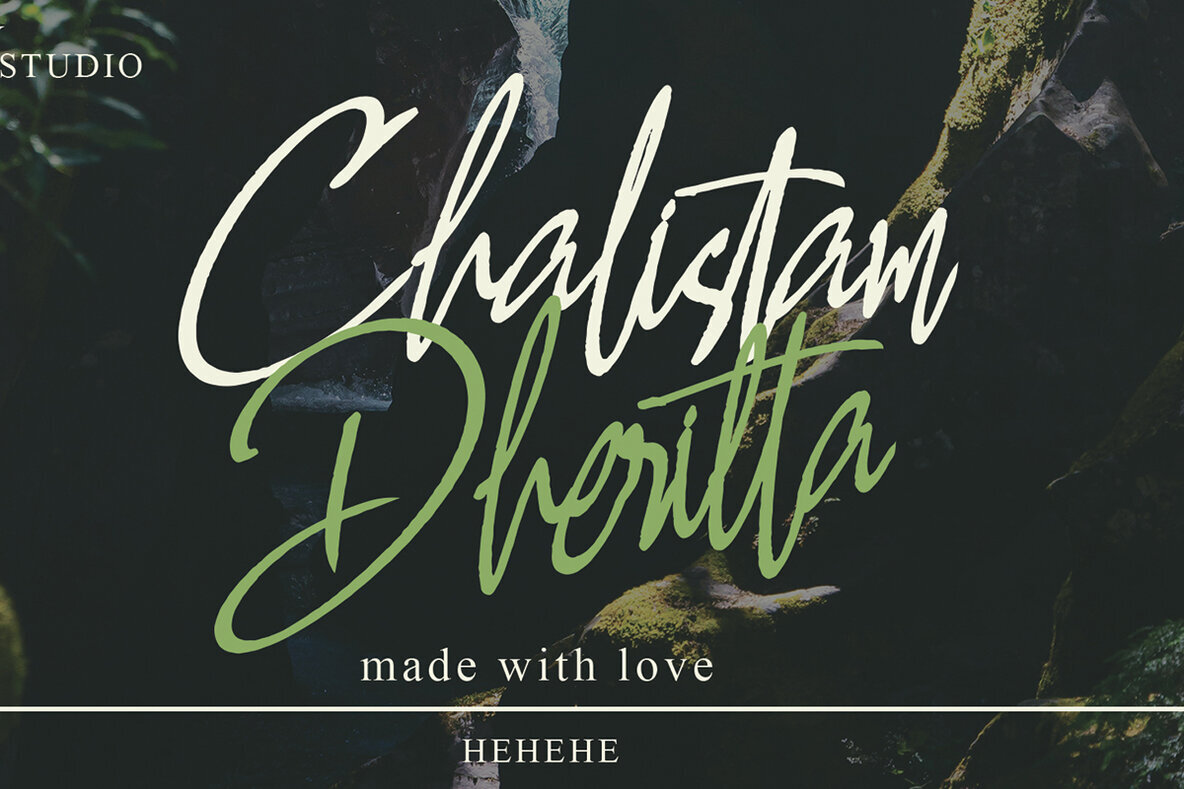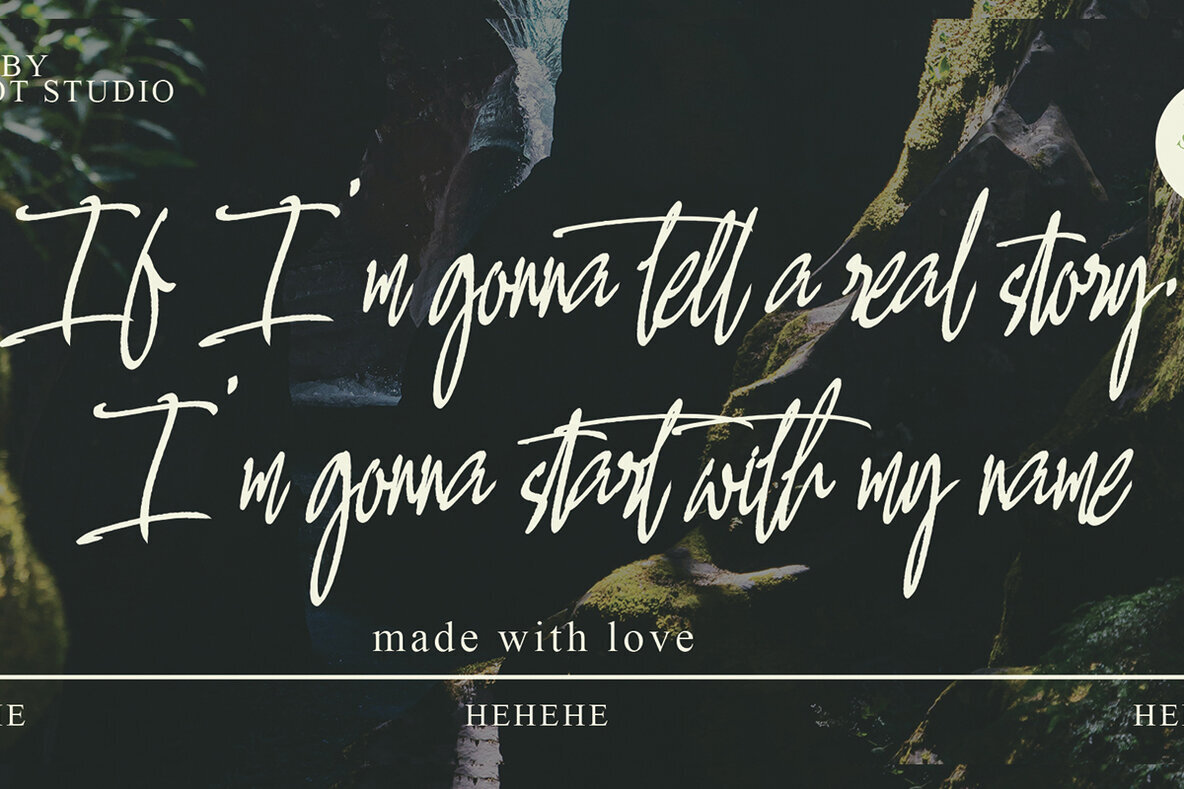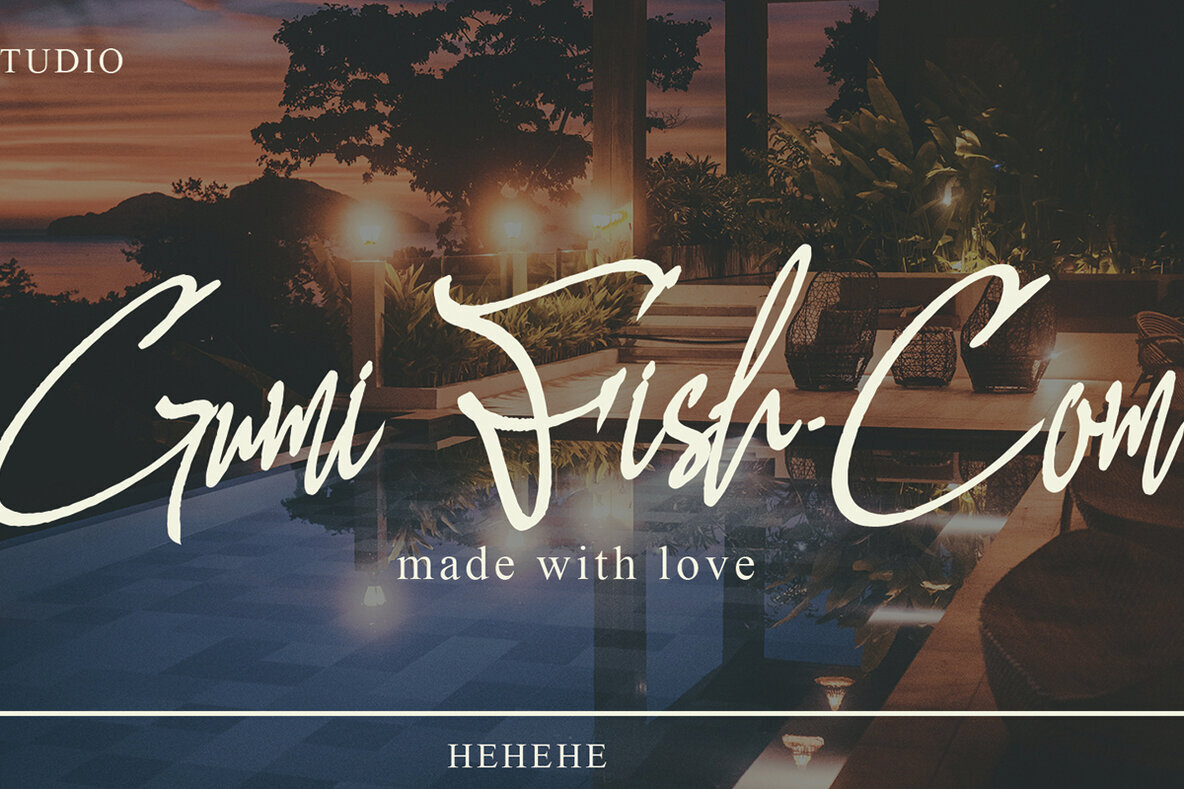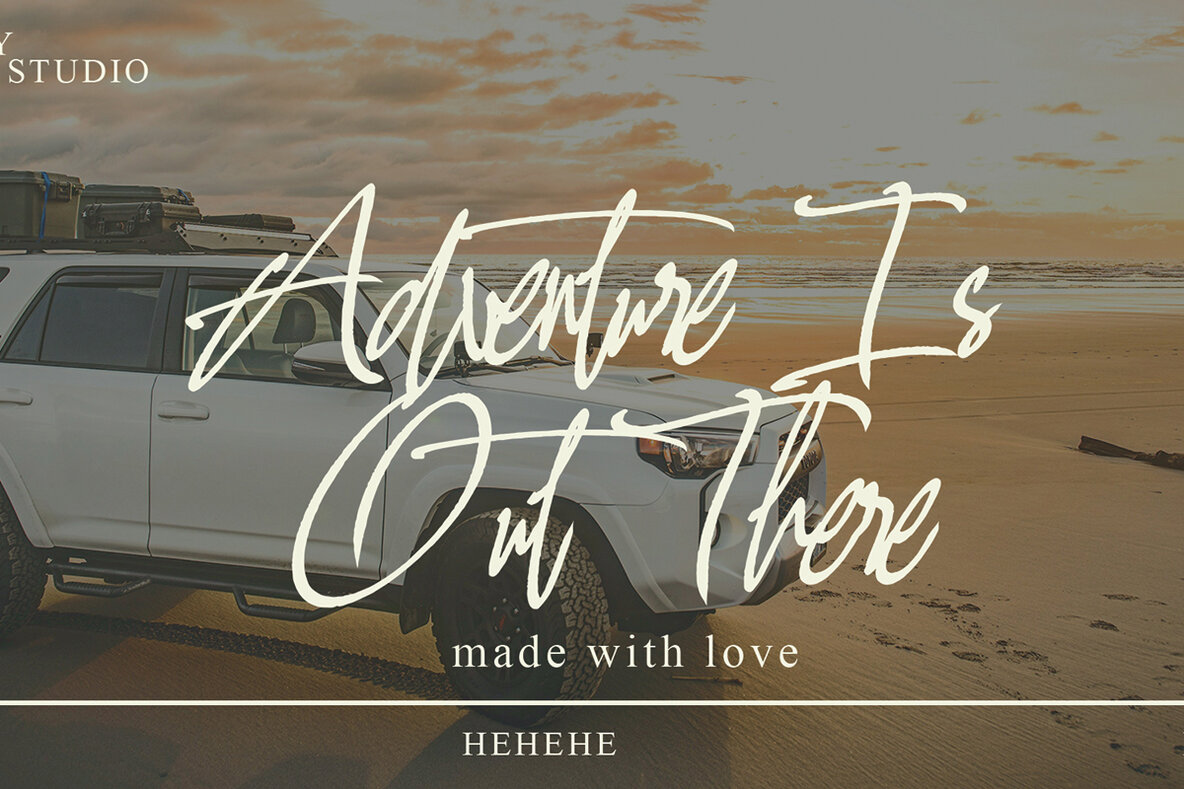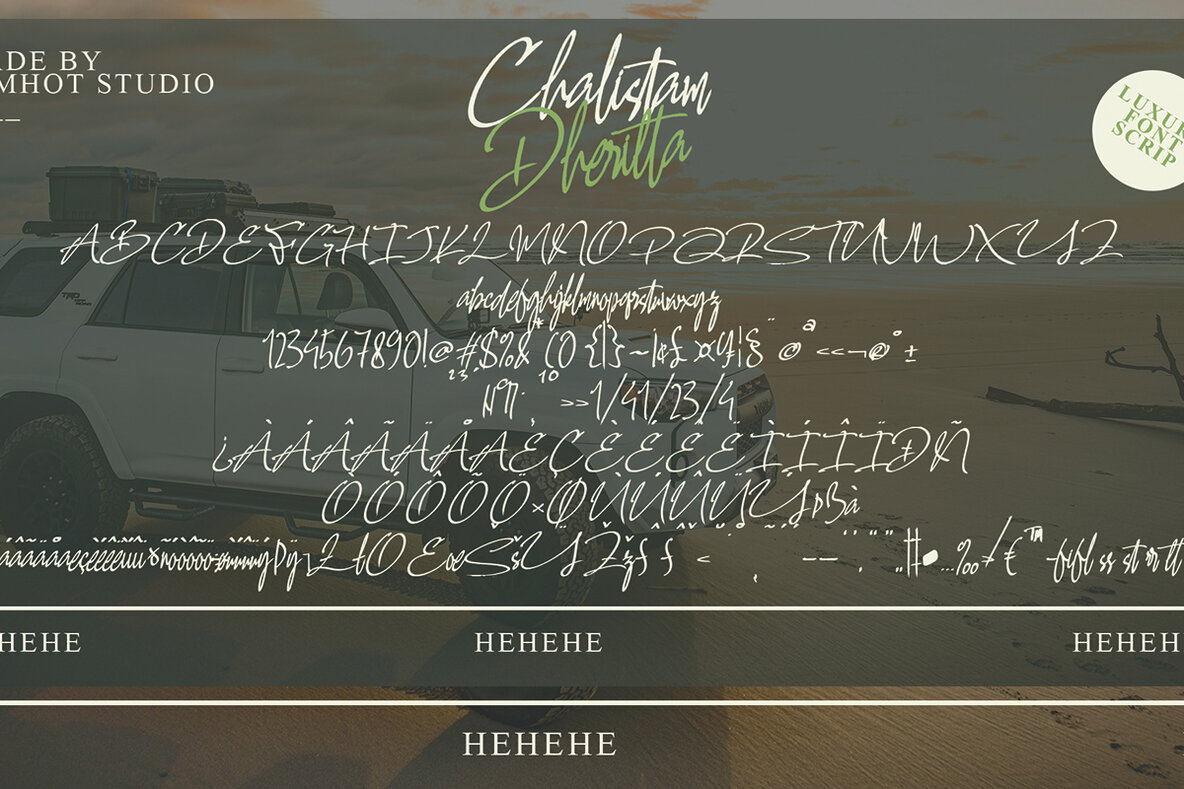
Chalistam Dherita brings an expressive flair to any creative endeavor. Balancing elegance and boldness, this script font suits graphic designers seeking visual distinction. The precise curves and organic flow lend themselves easily to branding and editorial work. This font adapts to both digital and print formats, providing a versatile solution for standout headlines or stylish invitations. Its dynamic letterforms pair well with contemporary layouts, while retaining a handcrafted character.Chalistam Dherita: Expressive Script for Distinctive Projects